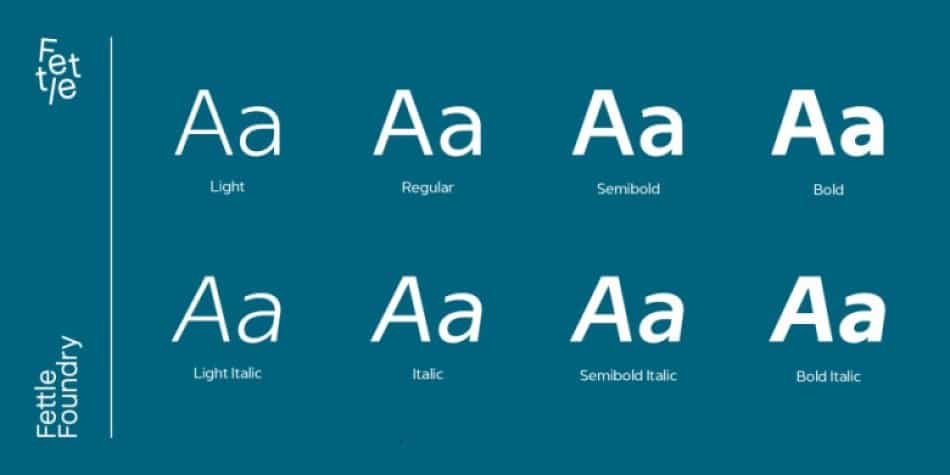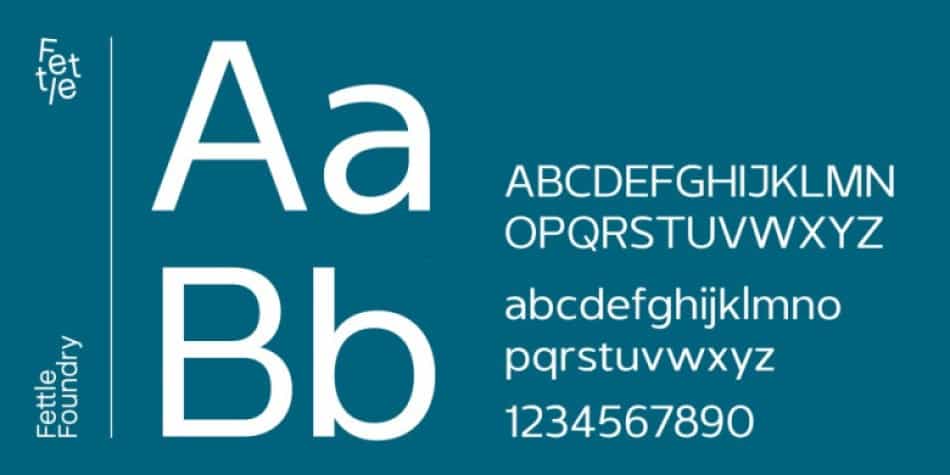
Barmby Sans Serif Font Family is an unconventional Neo-grotesk typeface designed with flexibility and aesthetics in mind. Characters feature large X-heights, counters with wide counter spaces and horizontal stress that maximize white space across various levels of usage – perfect for advertising! Due to its adaptability, it could even make for an excellent advertising typeface option.